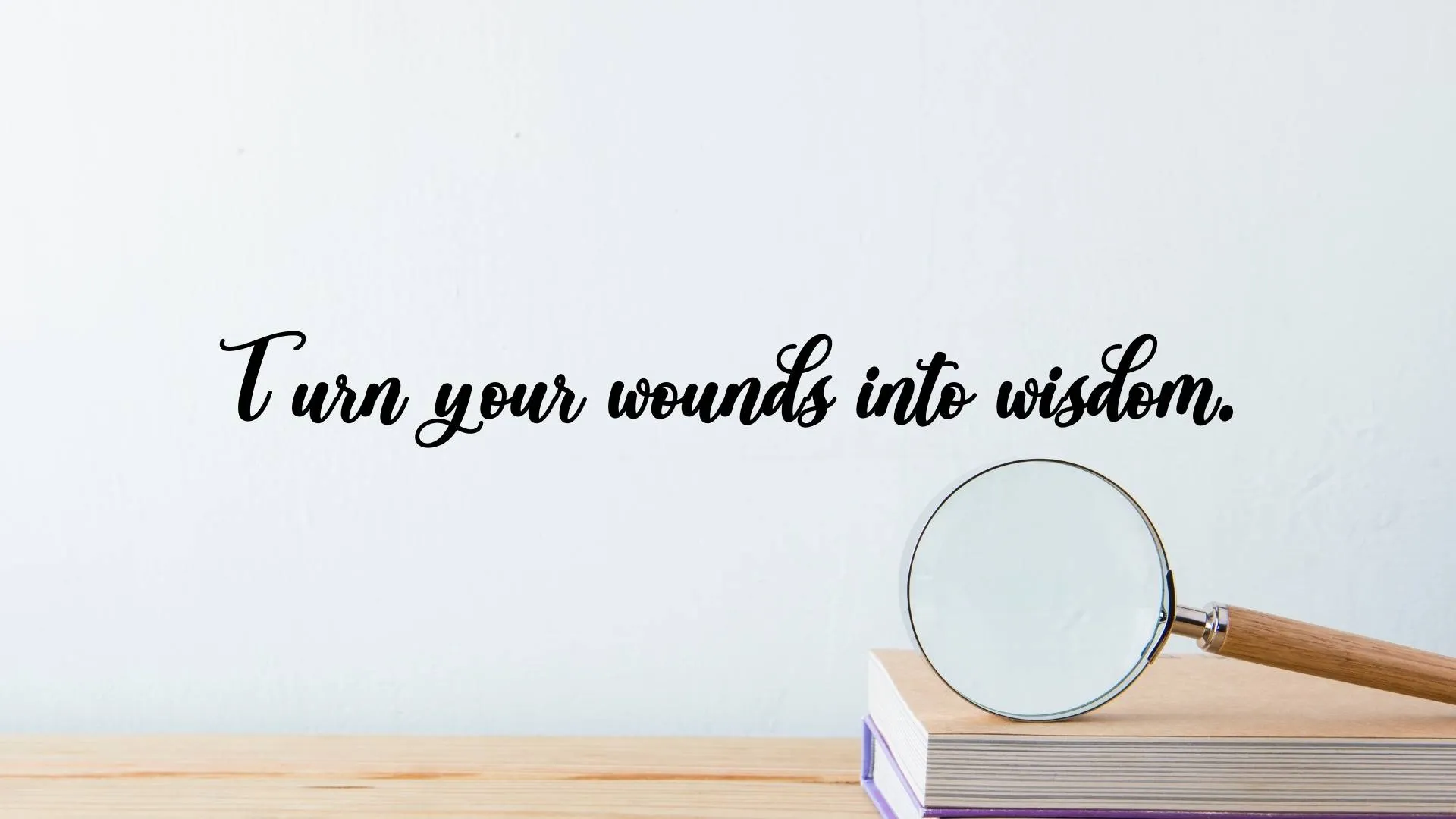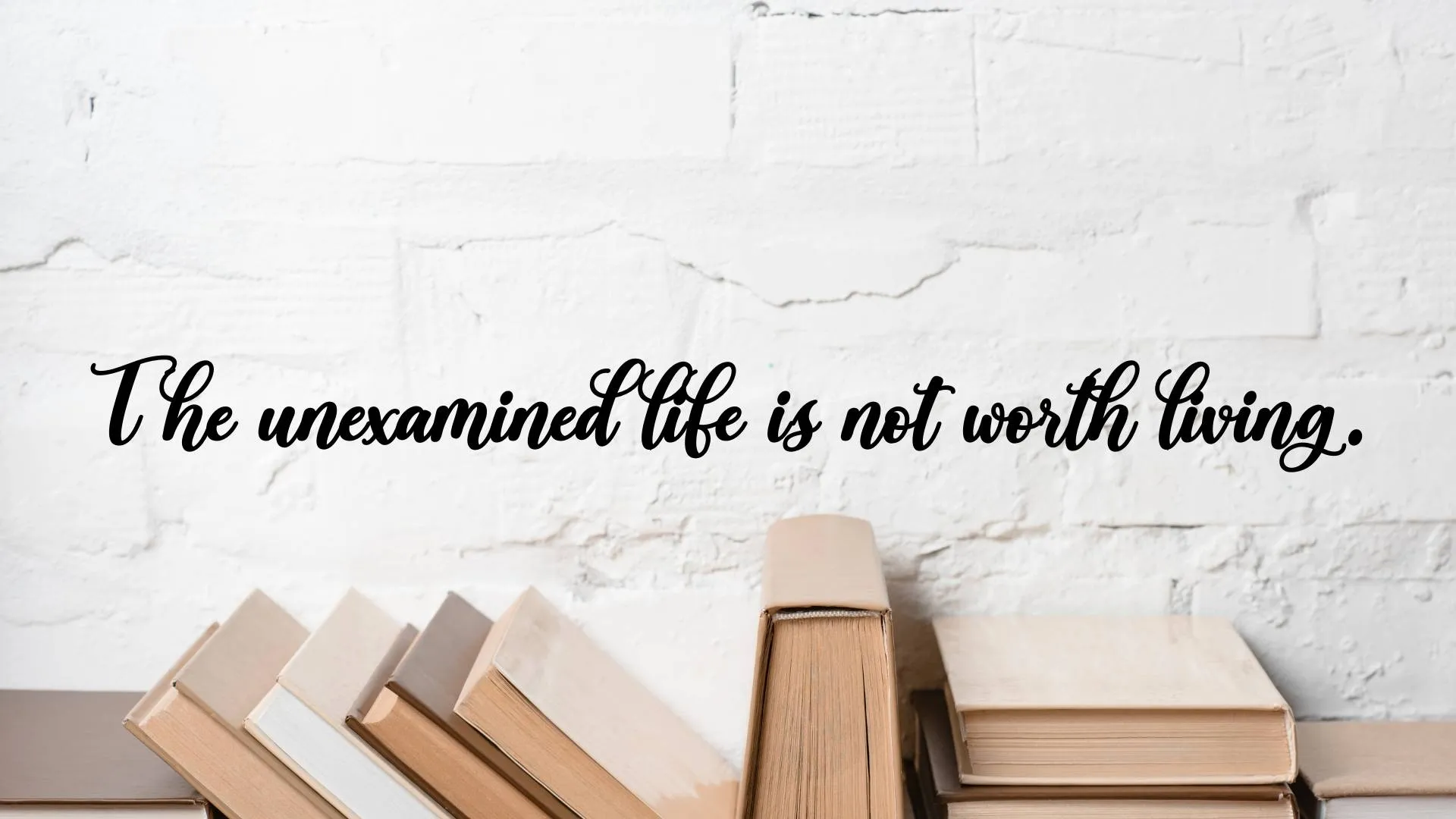
Another Day is a script type font. This font is designed by a famous designer named “Fontles”. It can be used on all Macs, PCs, and Linux Systems. Another Day Script is a beautiful font with many different styles.